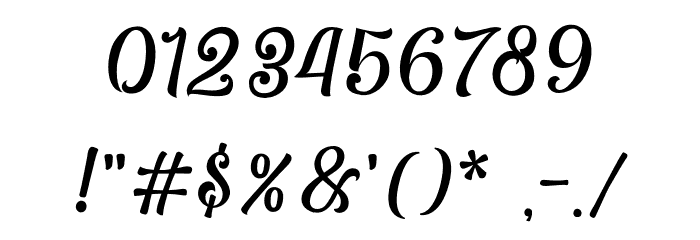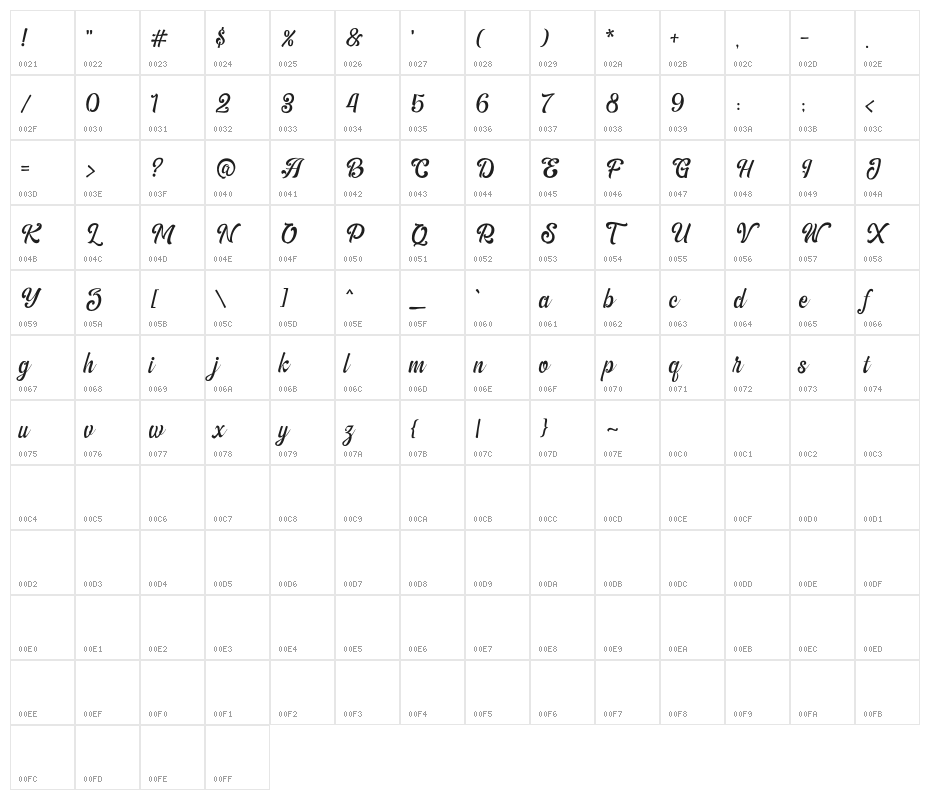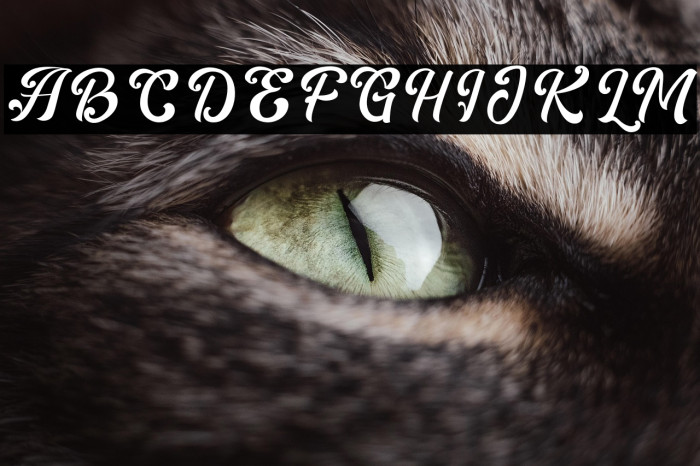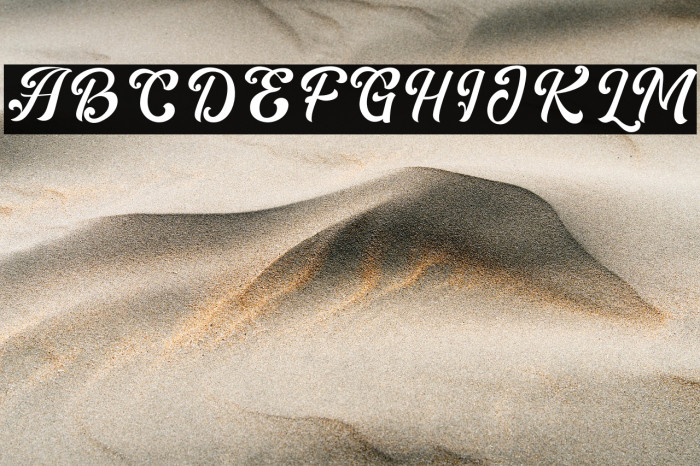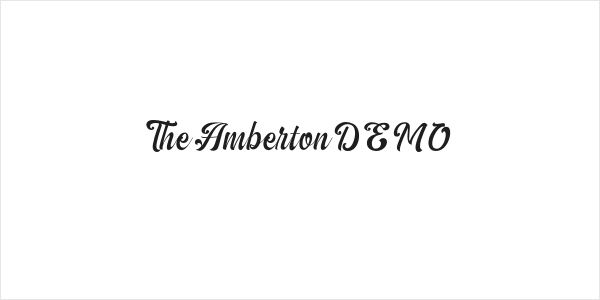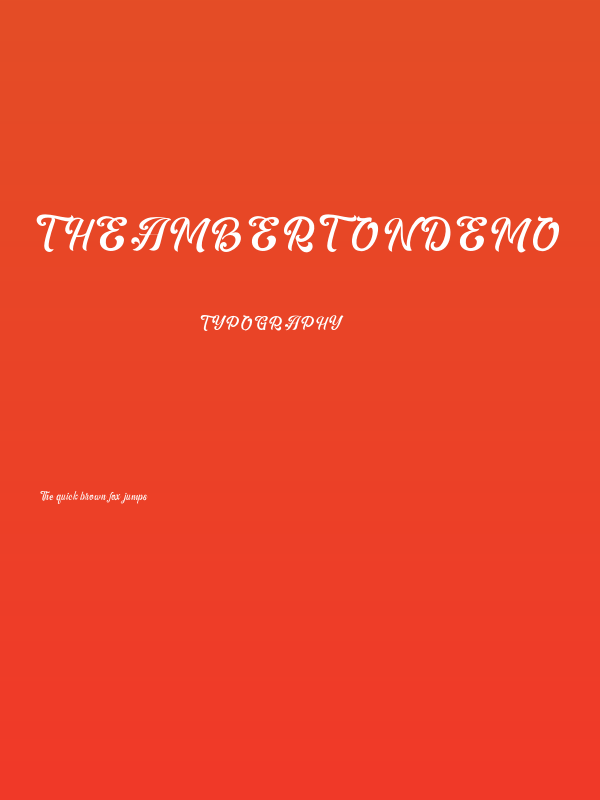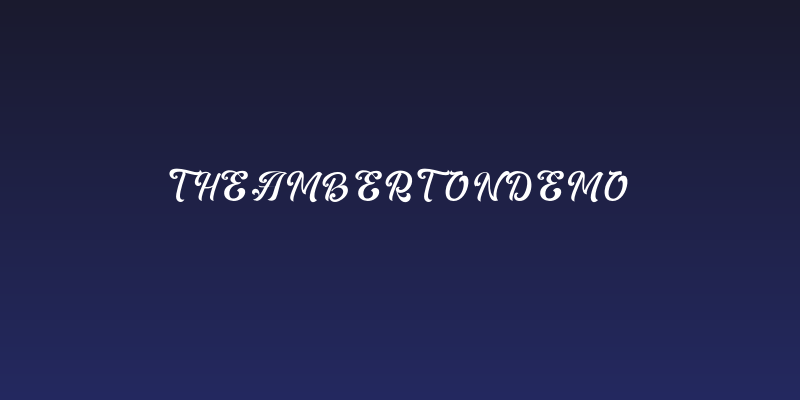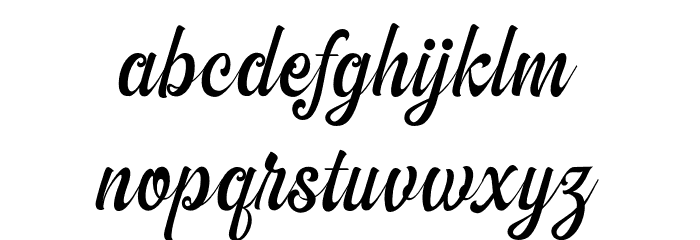
TheAmbertonDEMO Font
TheAmbertonDEMO Description
This font exudes a classic and elegant script style, characterized by its flowing, cursive letterforms. The uppercase letters are ornate, with flourishes that add a touch of sophistication, while the lowercase letters maintain a smooth and connected appearance, enhancing readability. The numerals are consistent with the script style, offering a cohesive look across all characters. Special characters are thoughtfully designed to match the overall aesthetic, making this font versatile for various applications. Its balanced weight and moderate contrast in stroke thickness contribute to its legibility and visual appeal.